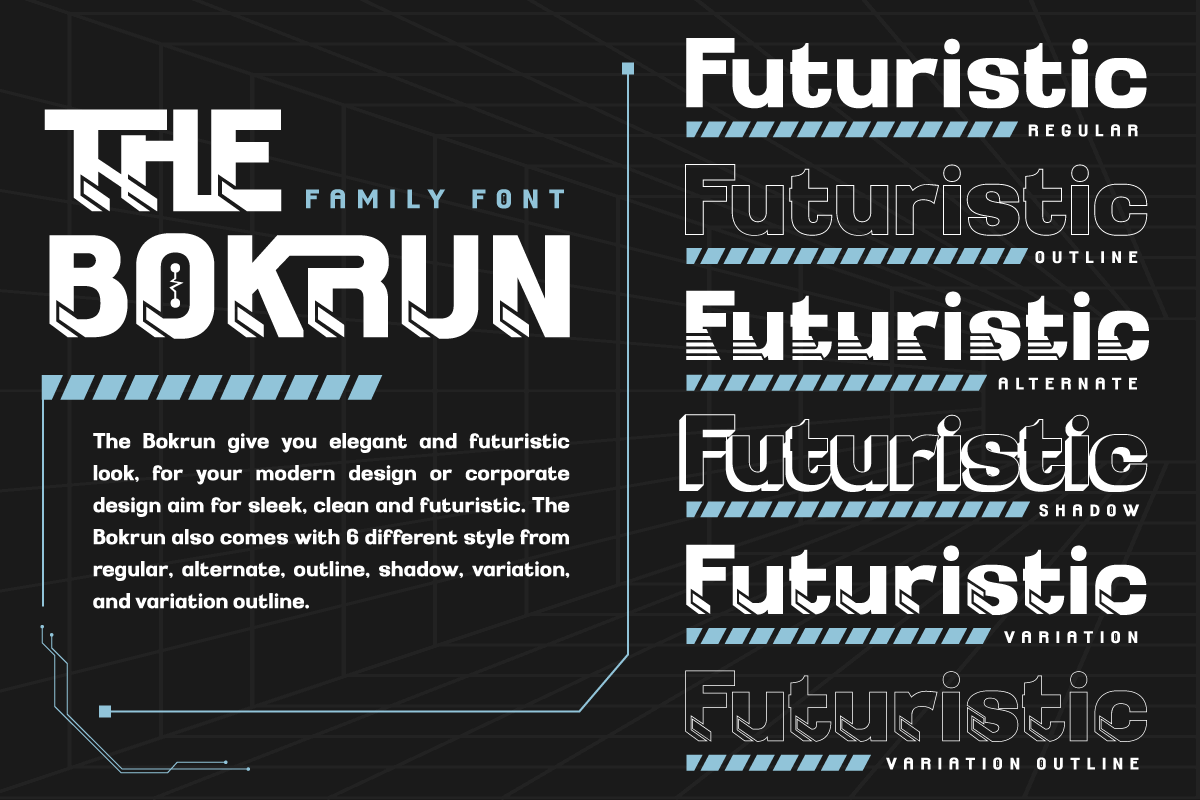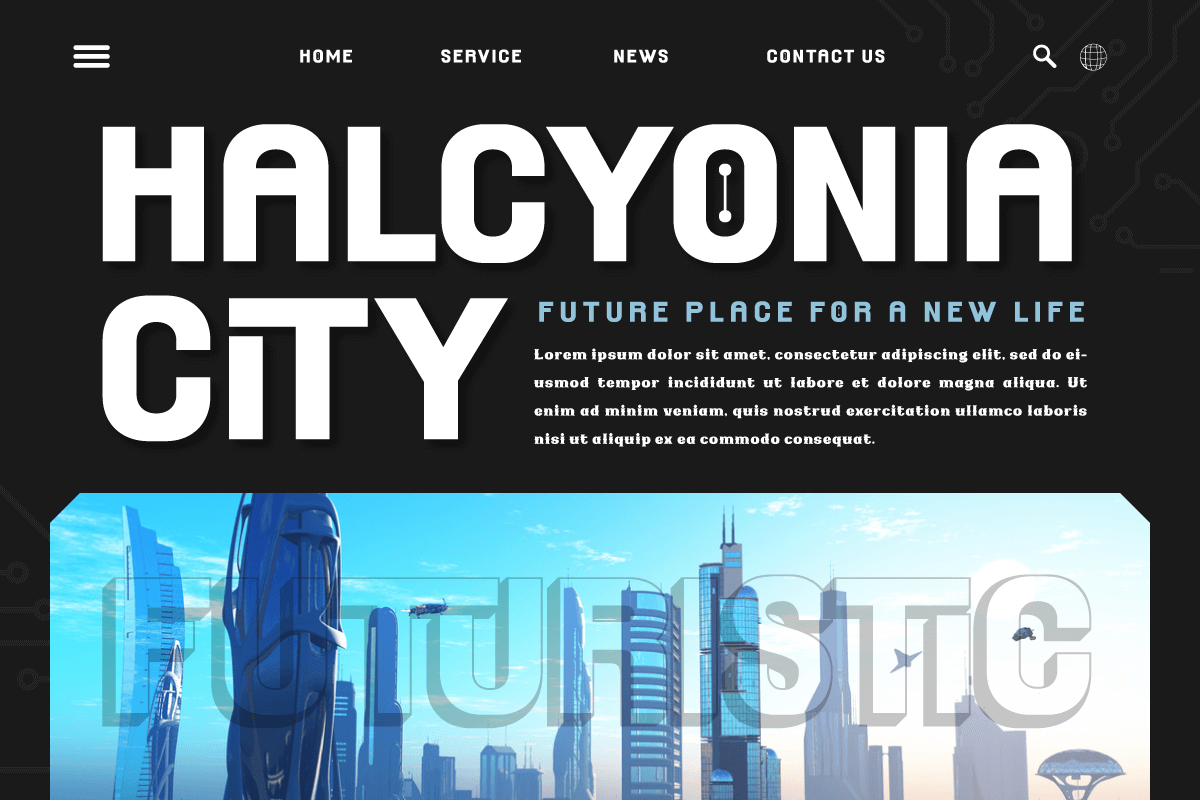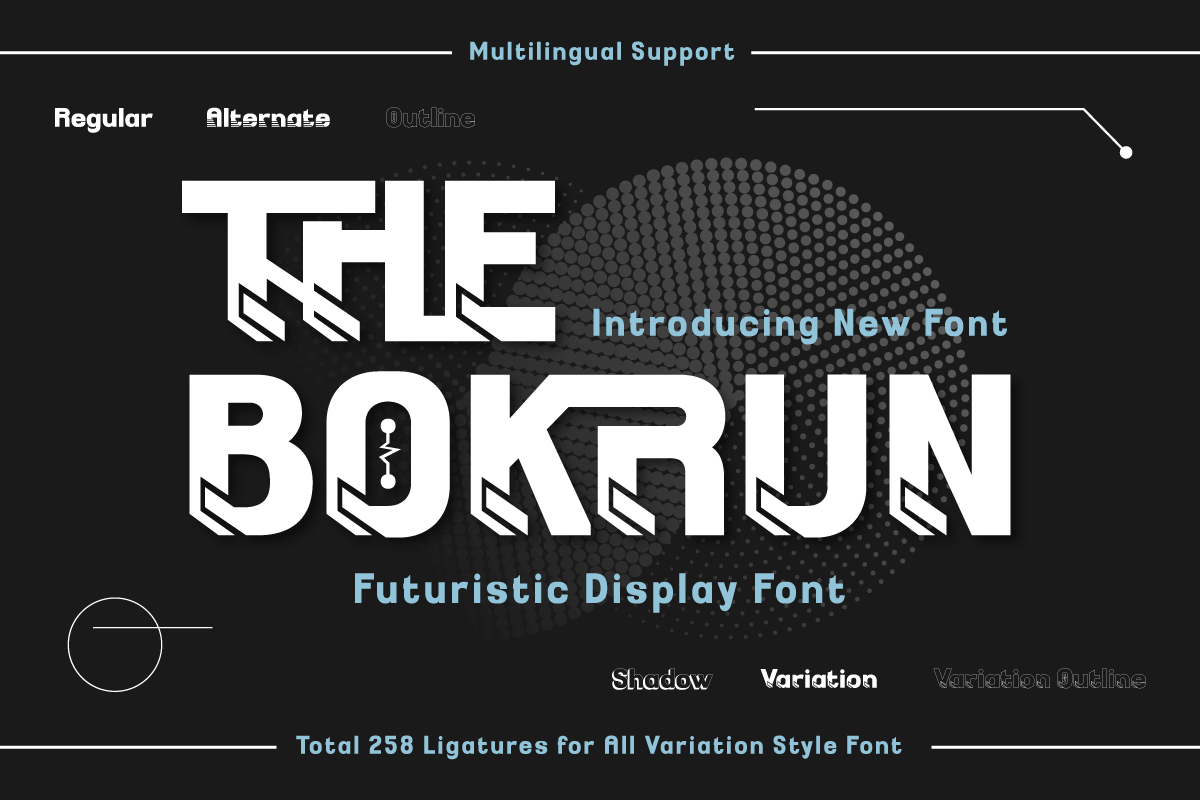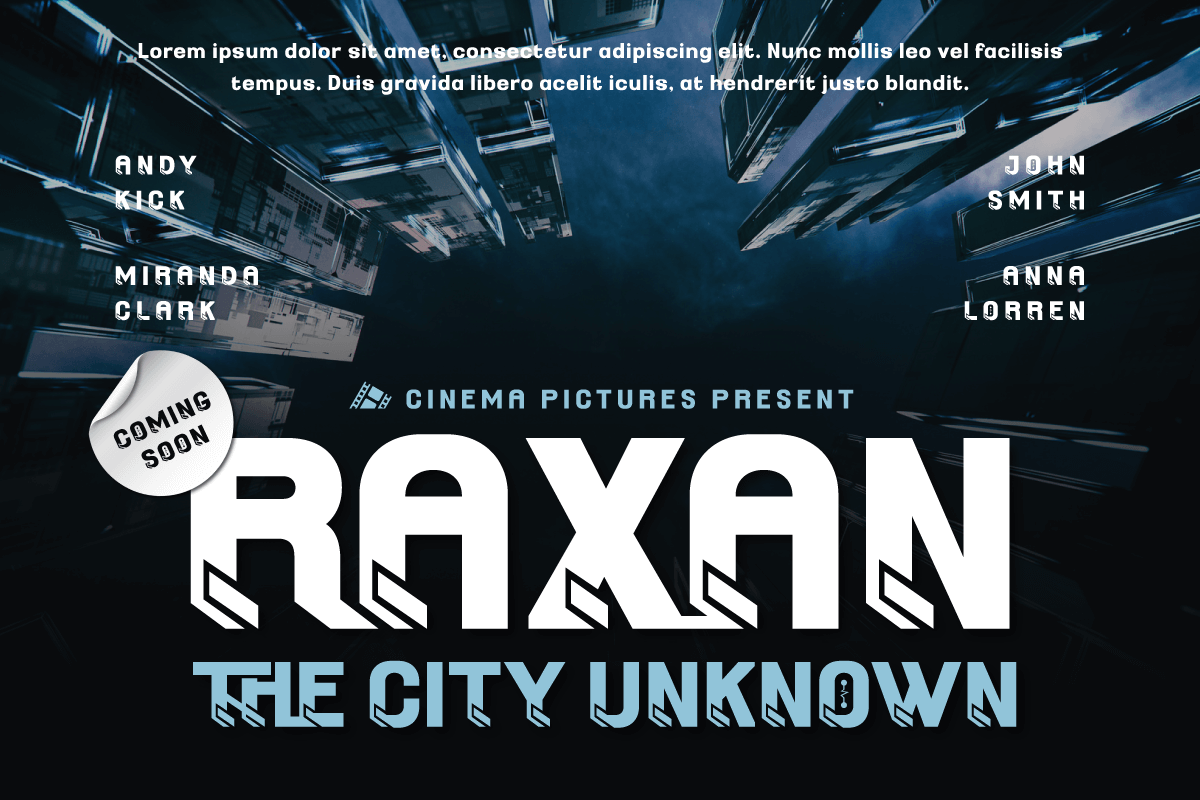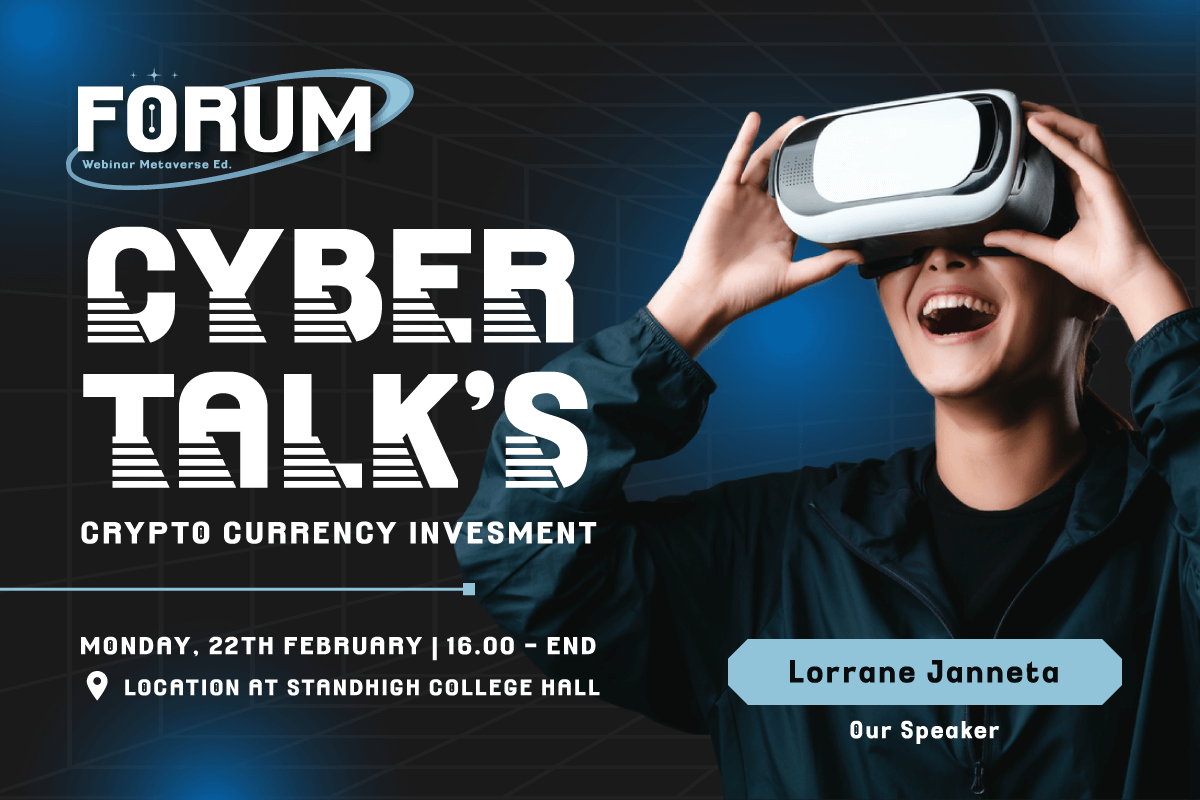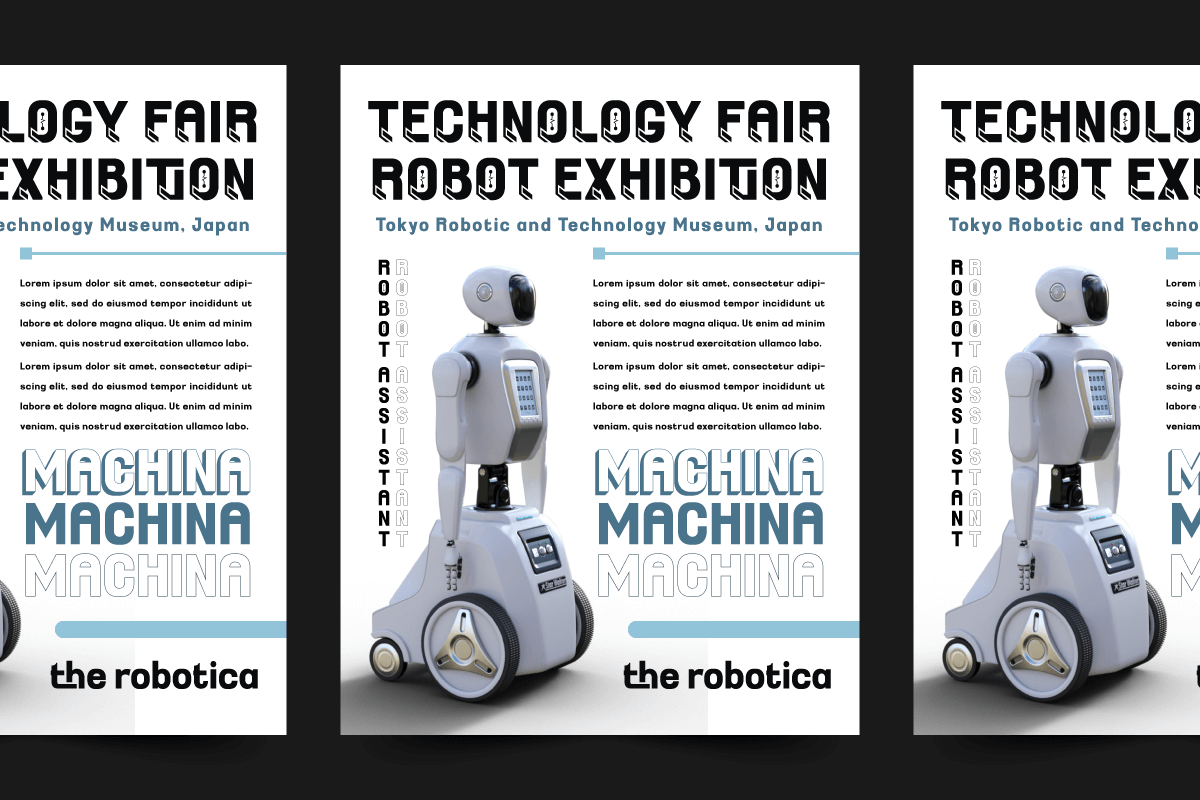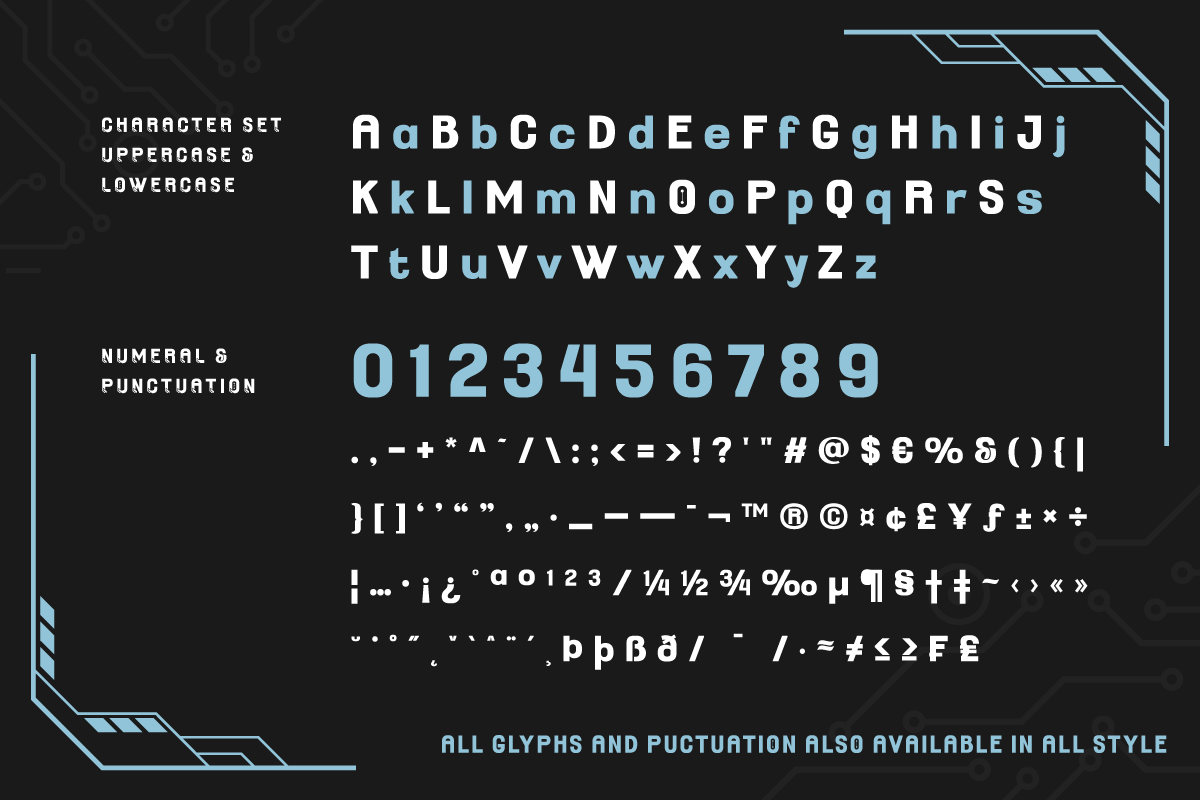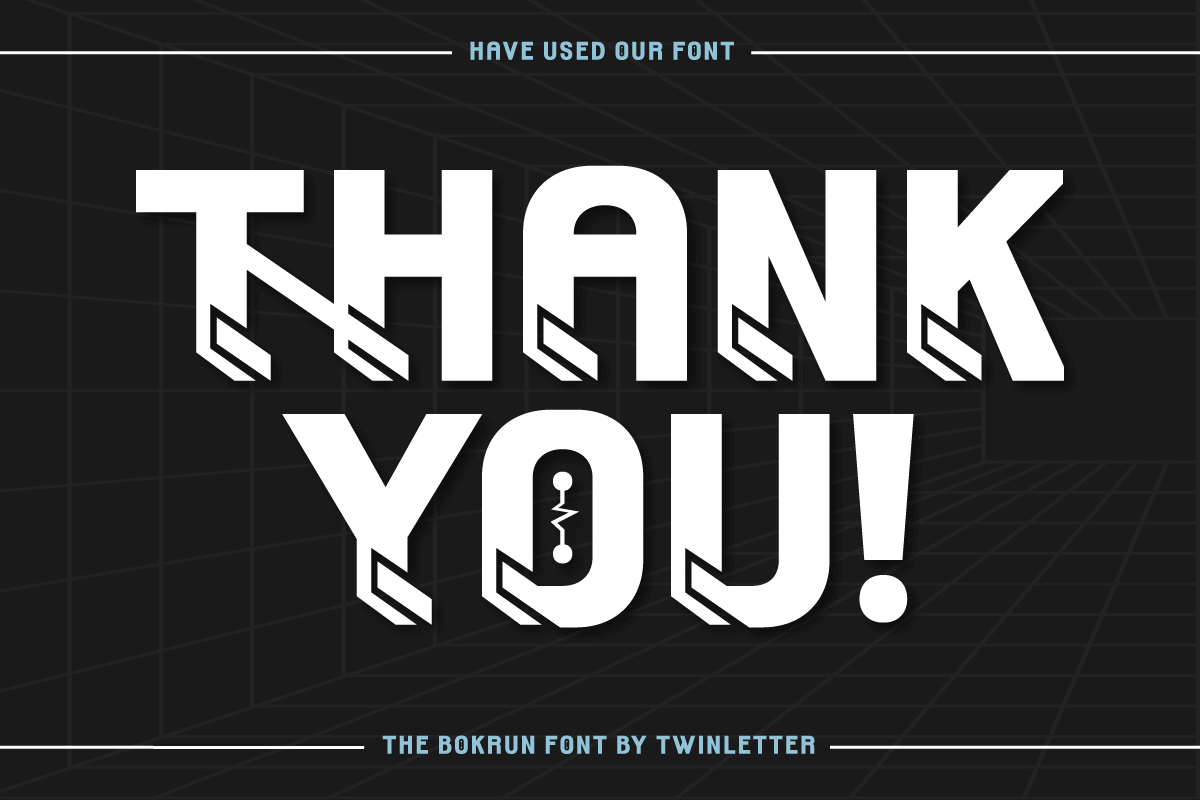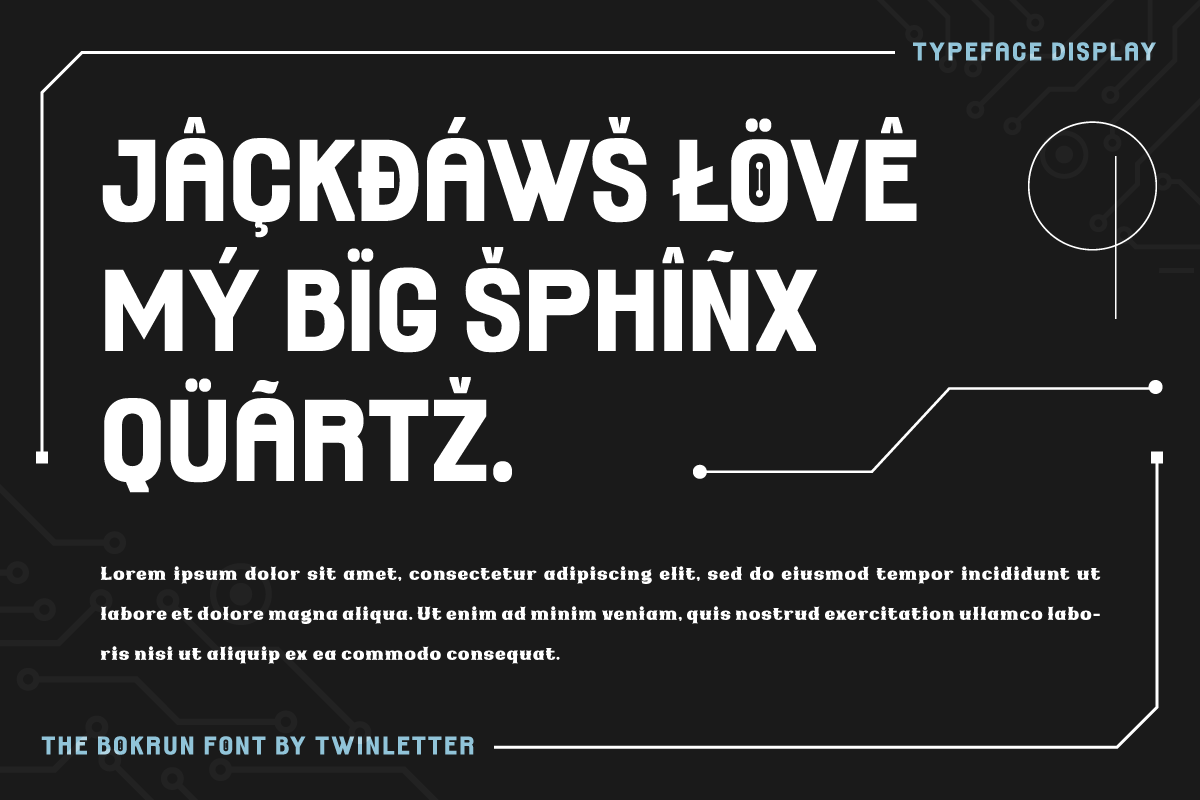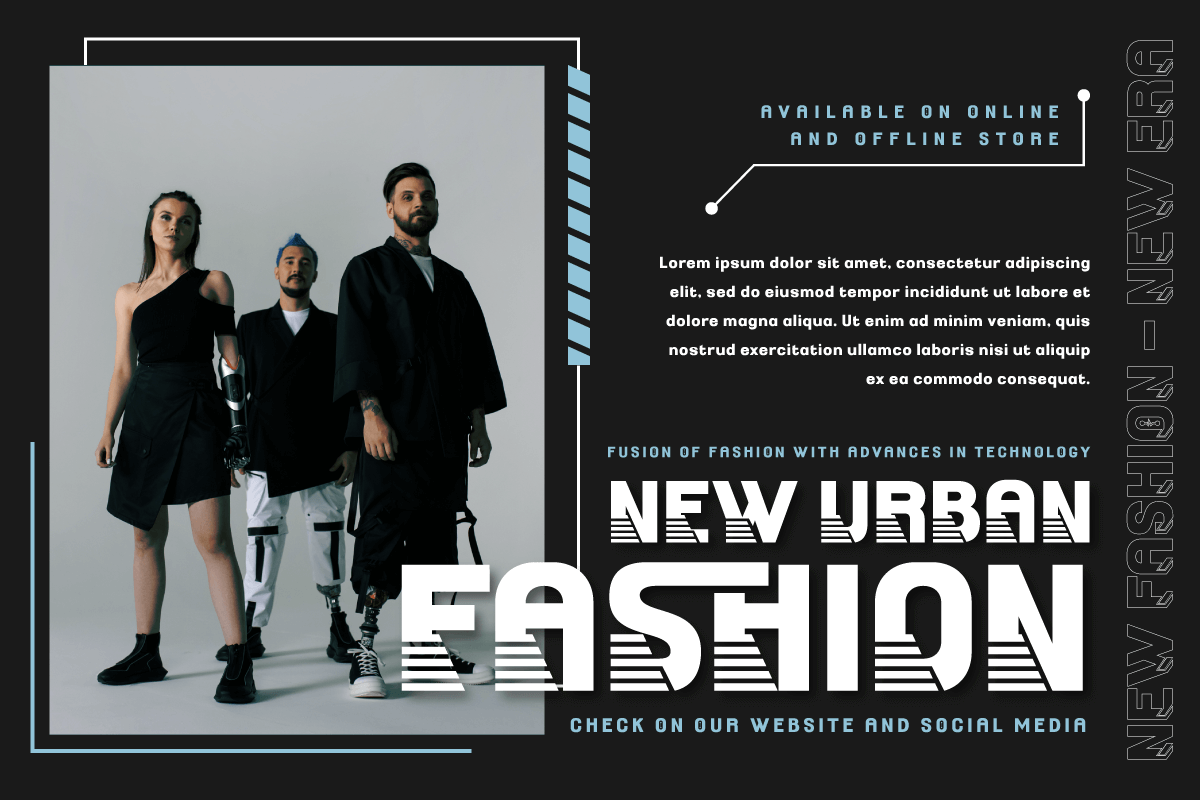
THE BOKRUN | Futuristic Font
Welcome to the futuristic world with The Bokrun, a future-themed font that will color your design projects! Get a unique experience with a modern, futuristic, and sci-fi touch that radiates from each letter. The Bokrun presents impressive futuristic styling with a sophisticated and dynamic design. This font will give a fresh and innovative look to any project that needs a touch of the future. With The Bokrun, you can easily create modern and evocative designs.
Not only that but The Bokrun is also equipped with great features that will give you unlimited creativity. Alternate ligatures and characters allow you to create unique and interesting letter combinations. Also, the different font variations give you the flexibility to express your ideas in greater depth.
Another advantage of The Bokrun is its multilingual support, so you can communicate with audiences from different languages without any barriers. This font will take you on an international and worldwide design journey.
Explore a futuristic world with The Bokrun, and let your every design be a window into the future. Get a modern, futuristic, and stunning design experience with this font. Don’t miss the chance to own The Bokrun, the perfect solution for your future projects that require a modern and futuristic touch.
- Alternate, Ligature
- Fonts include Multilingual support